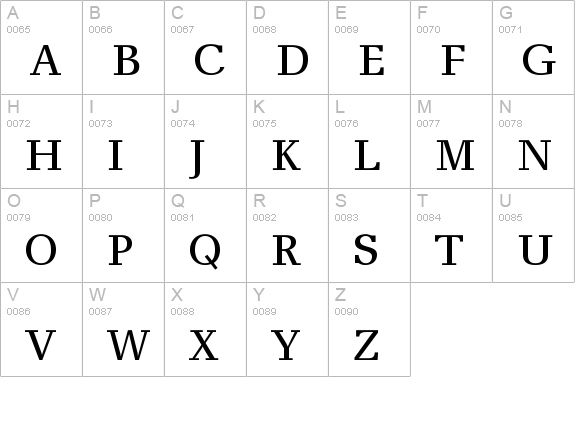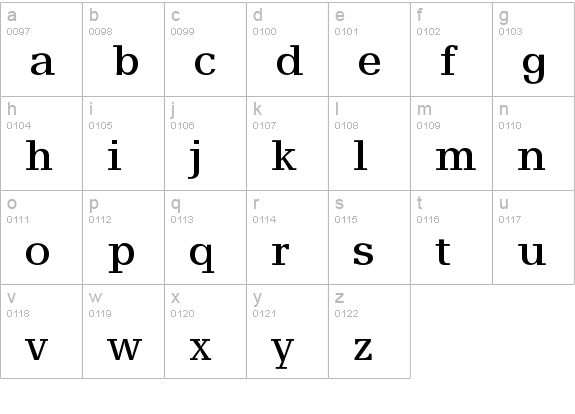
AlyssaOpti Font Details
Introducing AlyssaOpti font, a stunning display typeface that exudes elegance and sophistication. With its sleek and modern design, AlyssaOpti is perfect for adding a touch of class to any project. This versatile font is ideal for a wide range of applications, from branding and logo design to invitations and packaging. The unique letterforms of AlyssaOpti are sure to make a statement and leave a lasting impression. Its clean lines and distinctive curves create a harmonious balance that is both eye-catching and easy to read. Whether you're designing a wedding invitation or a high-end brochure, AlyssaOpti is the perfect choice for adding a touch of luxury to your project. Best of all, AlyssaOpti is available for free download at FontsMarket.com. So why wait? Elevate your designs with this exquisite font today and let your creativity shine.